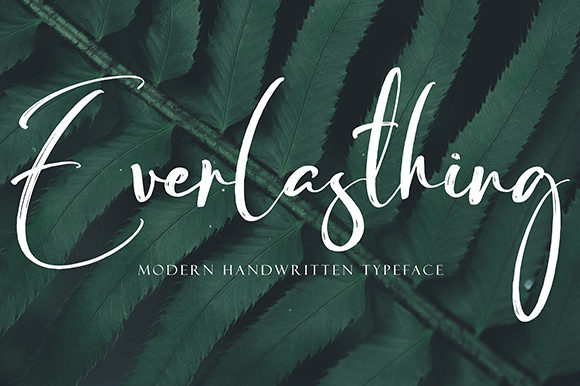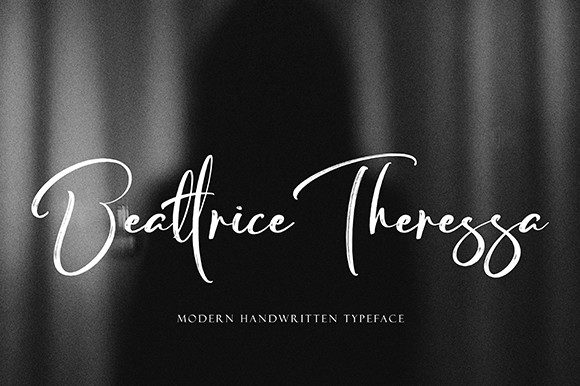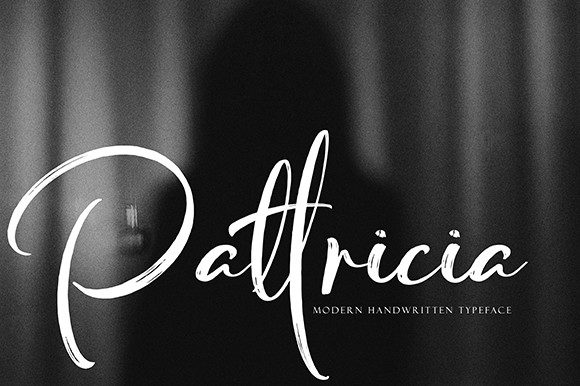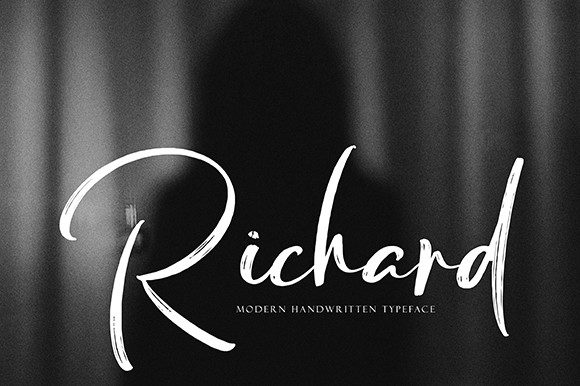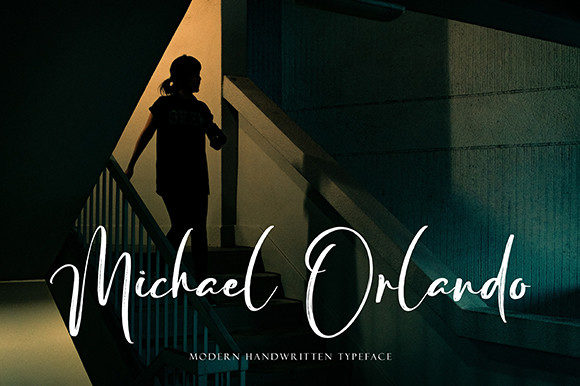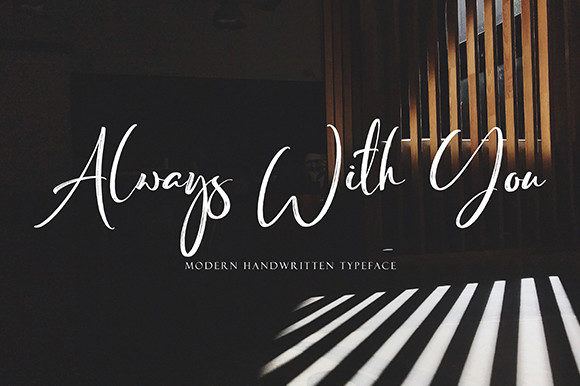
Discover the Timeless Charm of Everlasthing Font
Have you ever been working on a design project, and suddenly, you stumble upon the perfect font that elevates your entire concept? For me, that moment came when I discovered the Everlasthing Font. Its elegant and charming feel instantly captured my attention, and I knew I had to learn more about it.
The Everlasthing Font is a versatile and sophisticated typeface that’s perfect for a wide range of applications, from wedding invitations and thank you cards to logos and business cards. Its PUA encoded nature makes it easy to access all of the glyphs and swashes, allowing designers to add an extra touch of elegance to their work.
- Unique Characteristics:
- Hand-drawn design with a modern twist
- Unique letterforms and flourishes
- Highly legible and readable
Everlasthing Font Review
I’ve had the chance to work with the Everlasthing font, and I must say it’s a unique blend of modern and vintage elements. ✨ The font’s versatility shines through in its various styles and weights, making it suitable for a wide range of design projects.
- ✨ The font’s aesthetic is instantly recognizable, and its retro vibe can add a touch of sophistication to any design.
- ✨ The weight and style options provide a high degree of customization, allowing designers to fine-tune their designs to perfection.
- ✨ The font is highly legible, even at small sizes, making it perfect for body text or display headings.
However, there are some limitations to consider. ⚠️ The font’s complexity can sometimes make it difficult to work with, especially for designers who are new to font manipulation. Additionally, some of the styles may not be compatible with certain design software or platforms.
Overall, I think the Everlasthing font is a great addition to any designer’s toolkit. While it may have its limitations, its unique aesthetic and versatility make it well worth the investment.
For best results, use the Everlasthing Font for headings and titles to create a bold and eye-catching effect.
Use the Everlasthing Font to add a touch of elegance and sophistication to your designs.
For best results, use the Everlasthing Font for headings and titles to create a clear and readable document.
Use the Everlasthing Font for:
– Headings and titles to create a bold and eye-catching effect.
– Quotes and inspirational messages to add a touch of elegance and sophistication.
– Branding and logos to create a unique and memorable visual identity.
Remember to adjust the font size and style to ensure readability and visual balance in your designs.
Playfair Display is a luxurious and elegant serif font, ideal for high-end branding, luxury goods, and formal invitations. It features intricate details and ornate flourishes, making it perfect for special occasions. Compared to Everlasthing Font, Playfair Display has a more refined and sophisticated look, while Everlasthing Font has a more modern and edgy feel.
Pacifico is a beautiful and elegant script font, perfect for creating a sense of relaxation and serenity. It features smooth lines and a natural feel, making it ideal for branding, logos, and packaging for wellness and spa-related businesses. Compared to Everlasthing Font, Pacifico has a softer and more calming appearance, while Everlasthing Font has a bolder and more energetic feel.
3. Great Vibes
Great Vibes is a modern and stylish script font, ideal for creating a sense of fun and playfulness. It features bold lines and a dynamic feel, making it perfect for branding, logos, and packaging for entertainment and leisure-related businesses. Compared to Everlasthing Font, Great Vibes has a more energetic and lively appearance, while Everlasthing Font has a more subtle and understated feel.
What is the recommended font size and line height for optimal readability with Everlasthing Font?
The recommended font size for optimal readability with Everlasthing Font is between 12-14 points for body text. For headings, a font size of 18-24 points is recommended. The recommended line height is 1.2-1.5 times the font size. This will ensure that the text is easy to read and visually appealing.